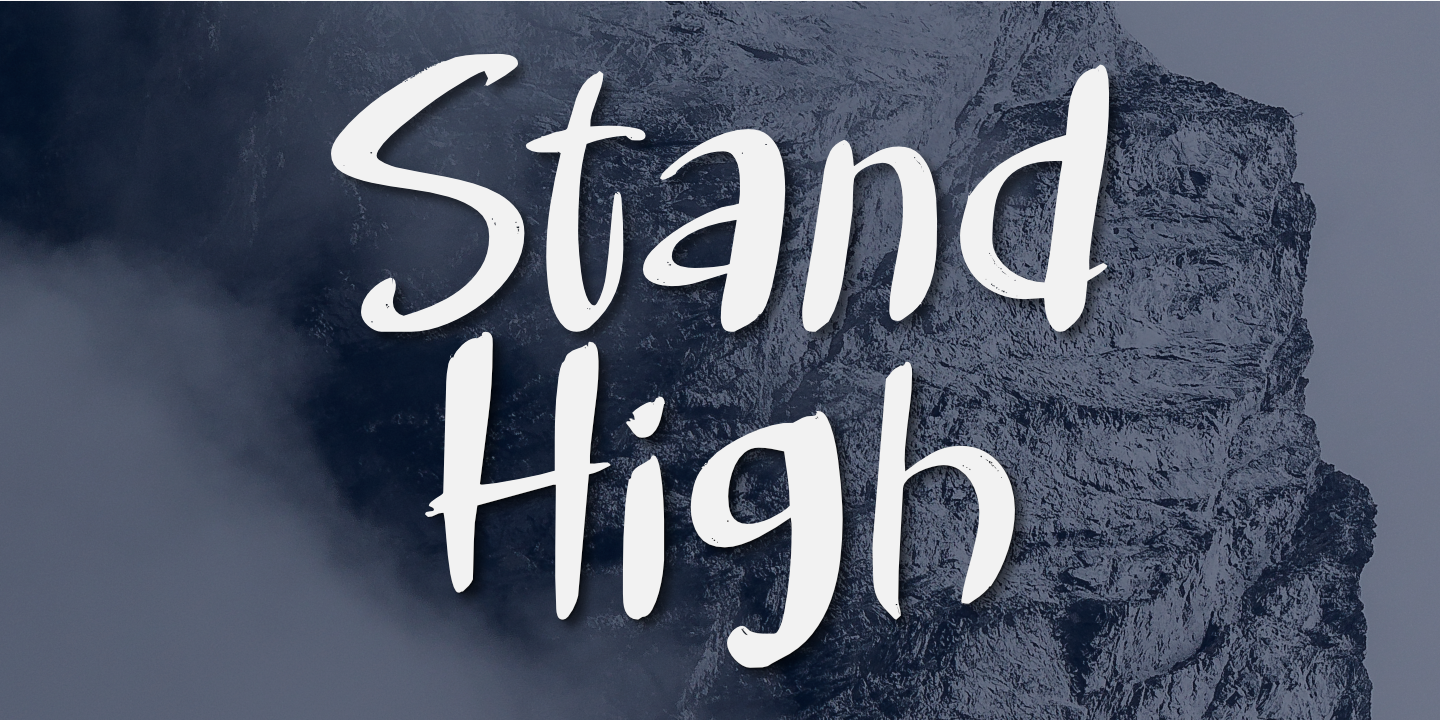
Stand High Font is a bold and commanding display typeface, designed to make an immediate and powerful visual statement. Its strong presence and often condensed or impactful letterforms make it an excellent choice for projects that demand attention and convey a sense of strength, energy, and modernity. Imagine it perfect for sports team branding, concert posters, striking headlines for advertising campaigns, urban fashion apparel, dynamic video game titles, and impactful event promotions. This font excels in environments where immediate recognition and a robust, contemporary aesthetic are paramount. It’s particularly effective for conveying confidence, excitement, and an undeniable sense of bold originality, ensuring your message not only stands out but also resonates with an assertive and memorable energy.
What makes Stand High Font truly exciting is its fearless approach to typography, offering a visually dominant presence that feels both aggressive and intelligently designed. Its assertive yet often subtly unique letterforms create a striking aesthetic that is both memorable and highly functional, especially in display settings. This font isn't just about displaying text; it's about making a powerful declaration, injecting your designs with a sense of purpose and cutting-edge sophistication. It has a powerful ability to feel both incredibly strong and surprisingly versatile, making it an ideal tool for designers who want their work to convey strength, impact, and a truly memorable visual experience. Stand High Font empowers brands and creatives to project an image of unwavering confidence and forward momentum.
The Stand High Font family typically offers a range of weights and styles to ensure maximum versatility for diverse design projects. You'll often find it includes a spectrum from regular to bold and even ultra-bold or black weights, providing robust options for typographic hierarchy and emphasis. Corresponding italic styles may also be available, allowing for dynamic variations in text presentation. This extensive family ensures that Stand High Font Free Download can adapt seamlessly to any design challenge, from powerful headlines that demand attention to clear, impactful sub-headings, all while maintaining a consistent and harmonious visual language. Its broad character set usually covers a wide range of Latin characters, numbers, and extensive punctuation, making it suitable for international projects and complex textual layouts.